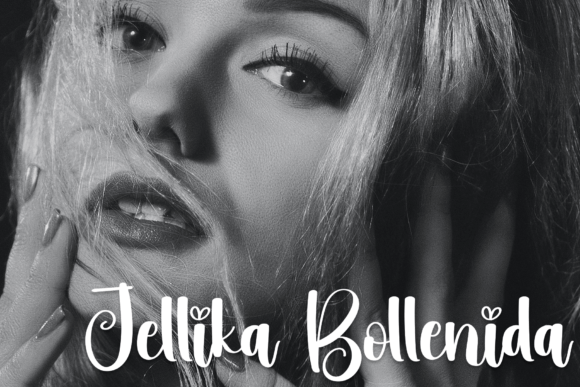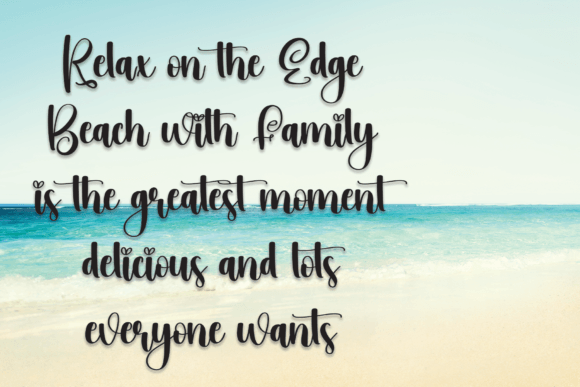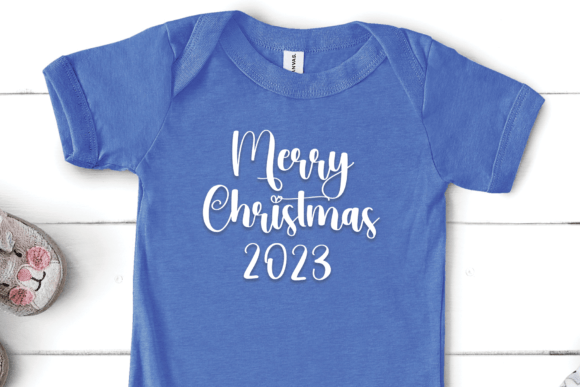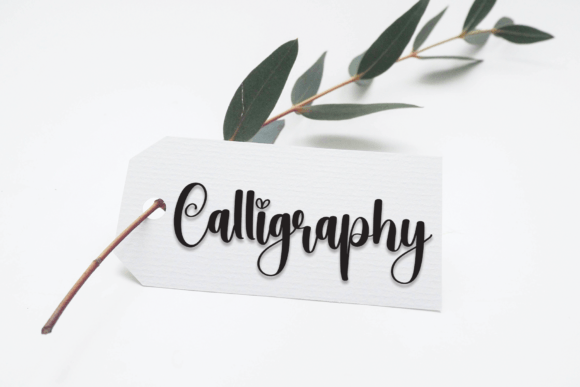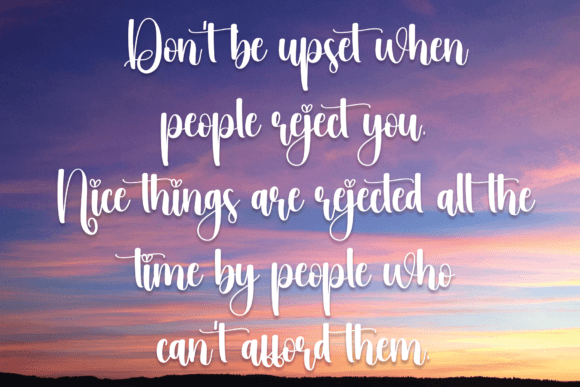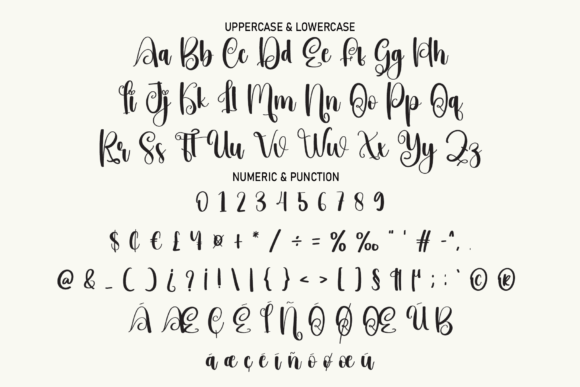
Remember that moment when you finally find the perfect font for your project? The one that makes everything fall into place and your design come alive? That’s exactly what I’m about to share with you – a game-changing font that will become your new best friend.
Meet the After Font, a cool and casual handwritten font designed to bring a personal touch to your crafts, digital designs, presentations, and greeting cards. With its versatility and unique charm, it’s no wonder why designers love using it for their next big project.
Whether you’re a seasoned pro or a beginner, the After Font is a valuable addition to your design toolkit. Its warm and inviting feel makes it perfect for any occasion, from birthday cards to wedding invitations, and everything in between.
Key Features of “After Font”
- Unique Character Set: After Font features a unique character set that includes a wide range of glyphs, including international characters and symbols.
- Script Support: The font supports multiple scripts, including Latin, Cyrillic, and Greek alphabets, making it a versatile option for various language applications.
- Font Weight and Style: After Font is available in various font weights and styles, including light, regular, bold, and italic, allowing users to customize the font to suit their needs.
Designer Review: After Font
After Font is an intriguing choice for designers looking to add a touch of sophistication to their projects. ✨ Its unique blend of modern and retro elements makes it a versatile option for various design applications.
The font’s subtle nuances in line widths and letterforms create a visually appealing contrast, which can add depth to text-based content. ✨ The font’s pairing capabilities are also noteworthy, as it can be effectively combined with other fonts to create a distinctive visual identity.
Here are some key strengths and limitations of After Font:
- ✨ Unique blend of modern and retro elements
- ✨ Versatile for various design applications
- ✨ Effective pairing capabilities
- ⚠️ May not be suitable for body text due to its decorative nature
- ⚠️ Can be overwhelming if used excessively
Overall, After Font is a solid choice for designers seeking to add a touch of elegance to their work. However, it’s essential to use it judiciously, as its decorative nature can be overwhelming if not balanced with other fonts. With careful application, After Font can be a valuable addition to any designer’s toolkit.
“After Font” is ideal for:
- Designing luxury brands and products.
- Creating high-end digital products.
- Adding a touch of sophistication to your designs.